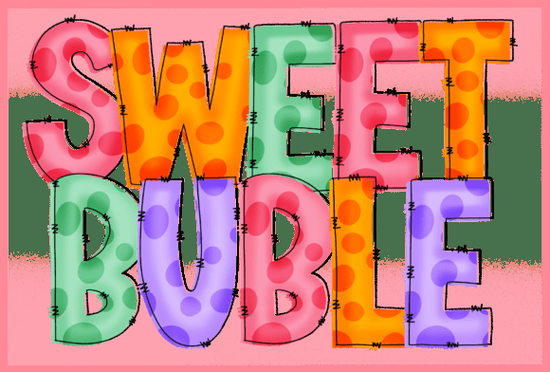
If you're looking for a friendly, playful font that stands out on kids’ party invites, craft labels, or cheerful social media graphics, the Sweet Buble Font is a solid choice. It’s not overly cutesy or hard to read just genuinely warm and inviting, with soft rounded shapes and subtle texture details that give it character without sacrificing clarity. Designed for real-world use, it works well both digitally and in print, especially when you want something more distinctive than standard bubble fonts.
What makes Sweet Buble Font different from other playful fonts?
Most bubble-style fonts rely on simple outlines or basic fills, but Sweet Buble Font adds thoughtful layers: a gentle stitched outline effect gives it handmade charm, while the polka dot pattern inside each letter adds visual interest without cluttering the design. That combination creates subtle dimension like the letters were carefully stitched and printed on fabric or pastel paper. It’s not just “cute”; it feels tactile and intentional.
The set includes uppercase and lowercase letters, numbers, and common punctuation, so it’s practical for full sentences not just headlines. You’ll also get bonus graphic elements like matching polka dot borders and standalone bubble accents, which help unify your layout whether you’re designing a baby shower banner or a sticker sheet for a small business.
Who uses this font and where does it work best?
Designers building branding for children’s products often reach for fonts like this when they need warmth and approachability. Crafters use it for printable party kits, embroidery patterns, or vinyl-cut signs for nurseries and playrooms. Print-on-demand sellers find it effective on mugs, tote bags, and onesies especially when paired with soft color palettes and minimal backgrounds. Small businesses selling handmade soap, organic snacks, or boutique stationery also appreciate how it conveys care and personality without feeling childish.
How to use it without overdoing it
Bubble fonts can easily dominate a layout, so here are a few grounded tips:
- Pair it with a clean sans-serif (like Montserrat or Open Sans) for body text this keeps readability high while letting Sweet Buble shine in headings or logos.
- Avoid stacking multiple decorative fonts if you’re using Sweet Buble for a title, skip other textured or outlined typefaces elsewhere on the same page.
- Try scaling it up slightly larger than usual its thick, rounded forms hold up well at bigger sizes, and it reads clearly even when simplified for embroidery or heat transfer vinyl.
- For digital use, test legibility on mobile screens first. Its friendly weight holds up well, but avoid light gray or pastel-on-pastel combos that reduce contrast.
One thing to keep in mind: while Sweet Buble Font has strong visual appeal, it’s not meant for long paragraphs or formal documents. Think of it as your go-to for moments that call for a smile not for legal disclaimers or technical manuals.
If you'd like to compare it directly with similar styles, you can view the Sweet Buble Font on Creative Fabrica alongside other hand-drawn and bubbly typefaces to see how it stacks up in terms of spacing, weight consistency, and stylistic cohesion.
- ✅ You need a friendly, non-generic font for joyful, lighthearted projects
- ✅ You’ll use it mostly for headlines, logos, labels, or short phrases not dense text
- ✅ You want built-in texture (stitch + polka dots) without needing extra layering work
If those match your situation, Sweet Buble Font is likely a thoughtful, practical addition to your toolkit not just another decorative download.